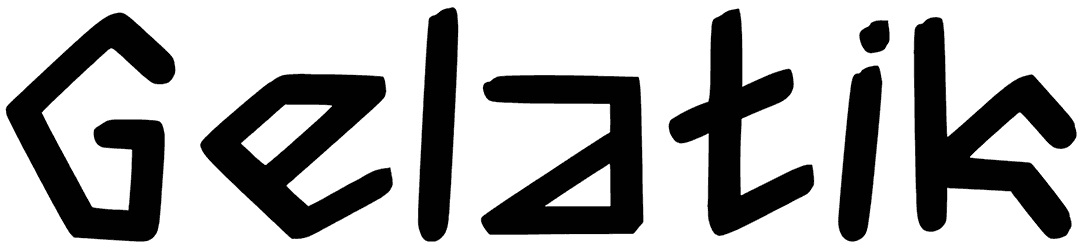
Gelatik Font
Here we come again to proudly introduce a marvelous gaming font, the same as the Gelatik, which comes with a unique style and multiplies the efficiency of your creative ideas.
Aside from the lack of numbers, this eroded font can be your superior game-changer in the realm of designing social media posts, stickers, digital banners, flyers, or product packaging. In addition to all of its numerous advantages, it can share a sense of jauntiness, eeriness, and vitality with the audience.